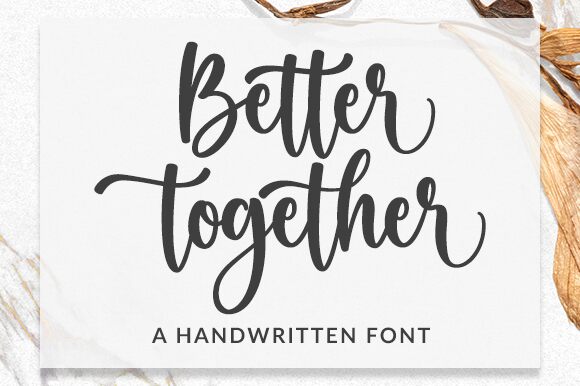
Better Together
Make your projects stand out with Better Together, a beautiful script calligraphy font designed by Aldi Raya Pradipta. Perfect for eye-catching designs due to its narrow width, Better Together is ideal for logos and titles.